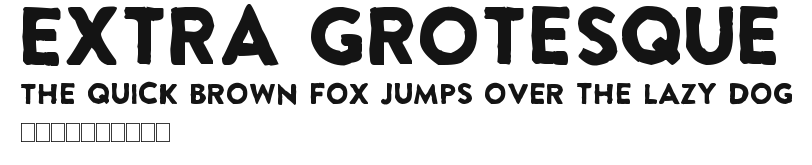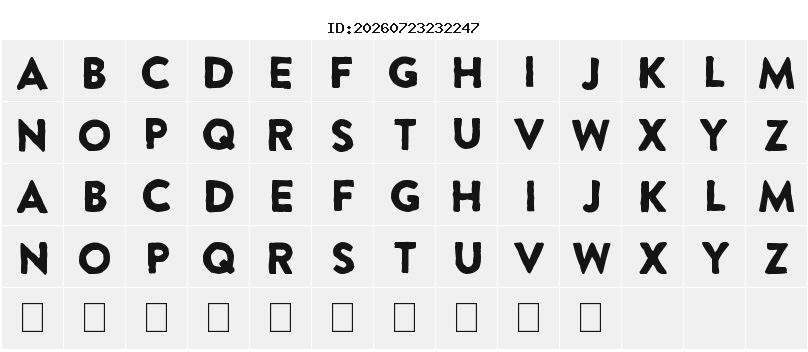
About Extra Grotesque.ttf
Extra Grotesque.ttf is a modern, elegant sans-serif font designed for ultimate readability and visual harmony. Perfect for branding, headlines, web design, and print materials.